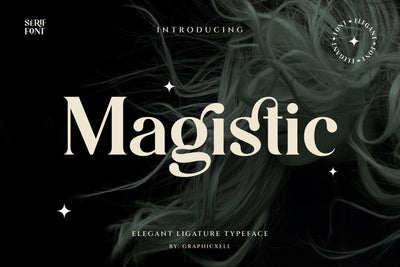
Magistic - Serif Ligature Typeface
Magistic Stylish Ligature Typeface inspired by the famous minimalist logo perfect for the purposes of designing templates, brochures, videos, advertising branding, logos and more.
+ Ligatures